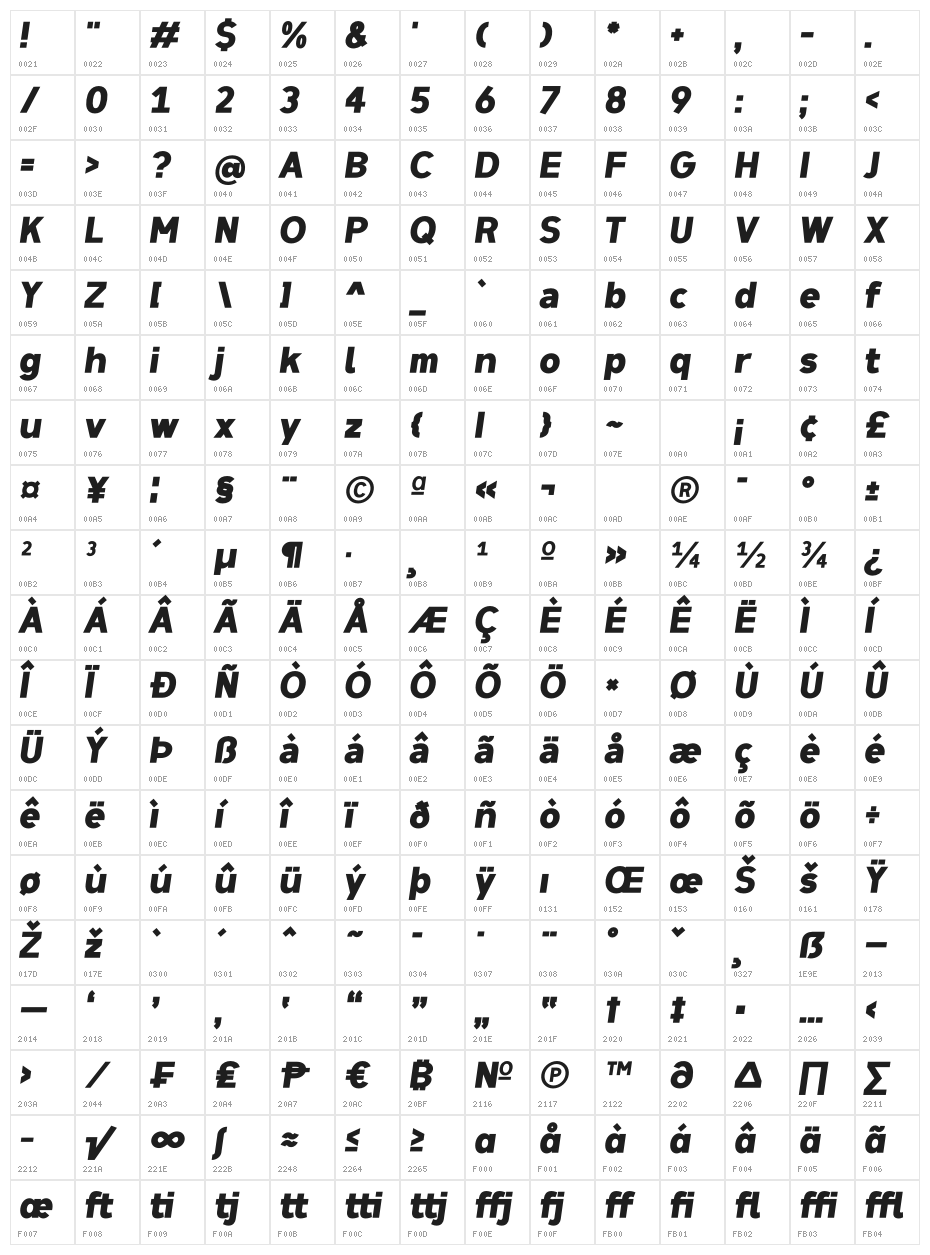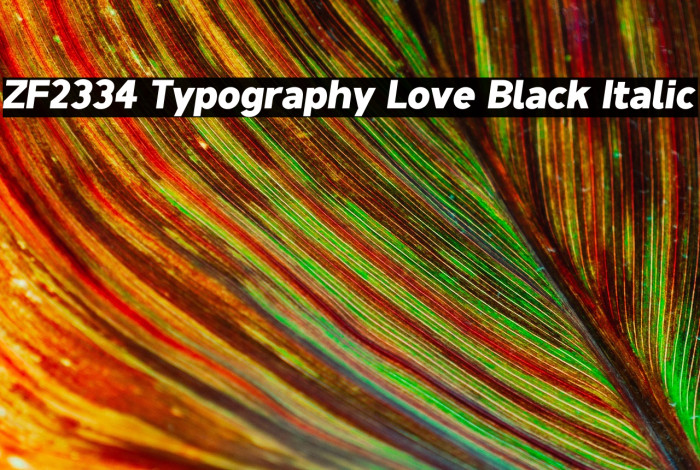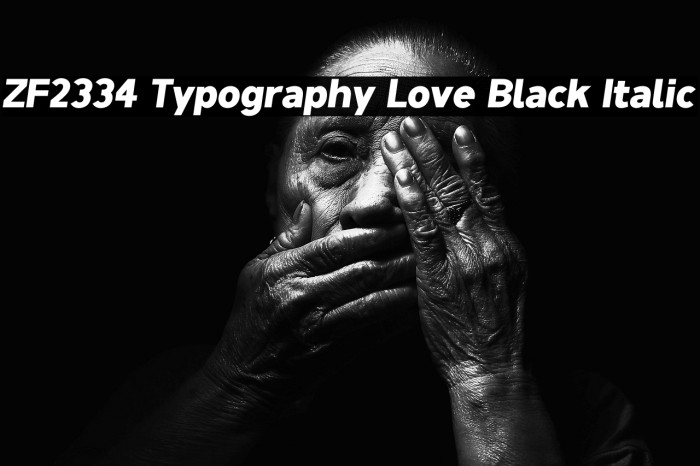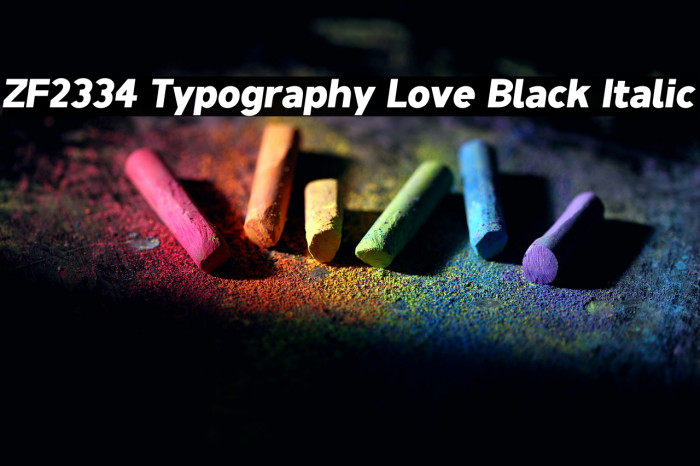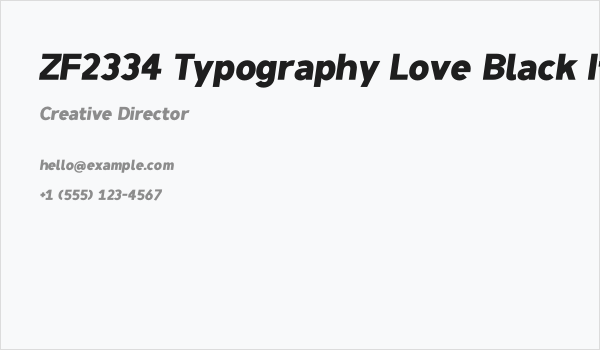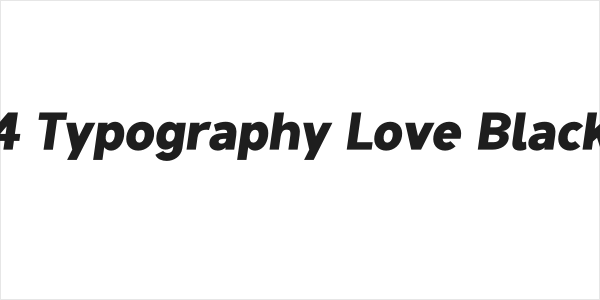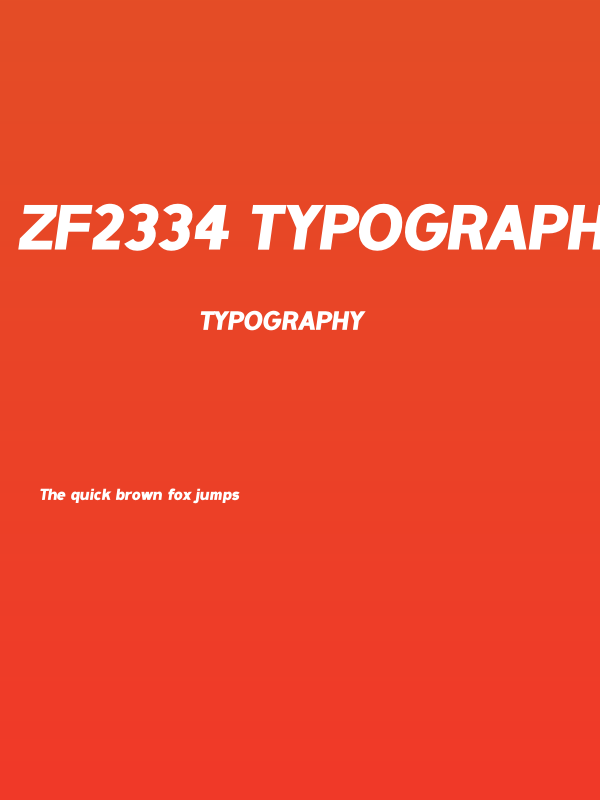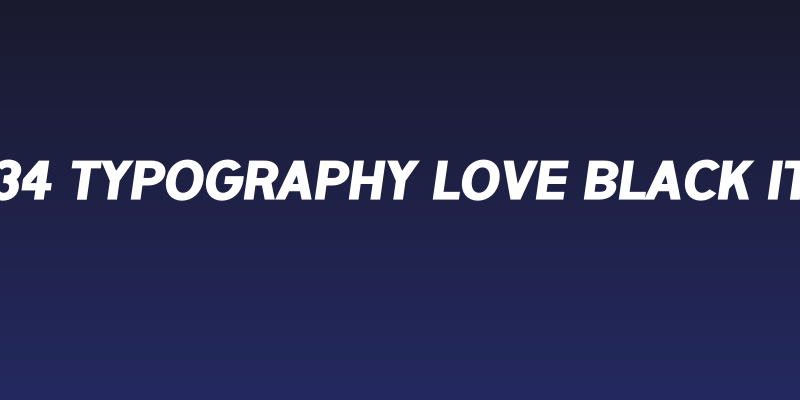
ZF2334 Typography Love Black Italic Font
ZF2334 Typography Love Black Italic Description
This font features a bold and italicized style, characterized by thick strokes and a pronounced slant, giving it a dynamic and energetic appearance. The letters are closely spaced, enhancing its compact look. The uppercase letters are robust and commanding, while the lowercase letters maintain a consistent flow, contributing to its cohesive design. The numerals are equally bold, ensuring readability and impact. Special characters are designed with the same boldness, maintaining uniformity across the character set. The overall design is modern and assertive, suitable for making strong visual statements.
| Use Case | Headlines, Logos, Advertising |
| Proposed Projects | Ideal for branding, advertising, and headlines where a strong, impactful presence is required. |